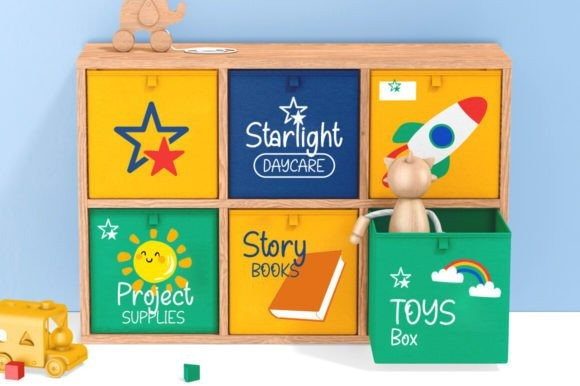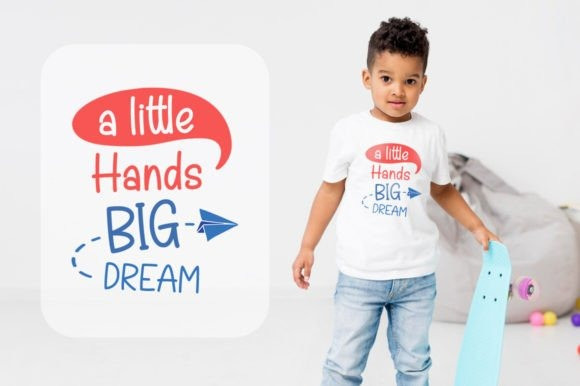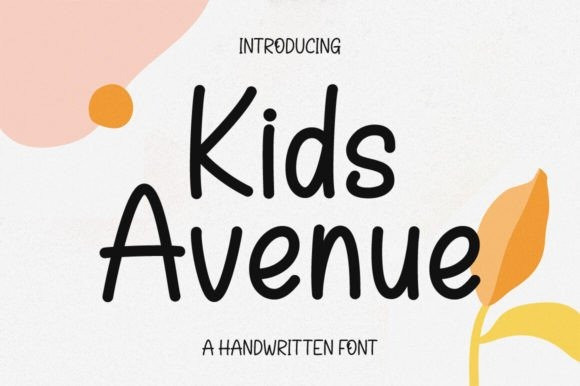
Kids Avenue Handwriting Font
Kids Avenue Handwriting Font is a lovely and timeless handwritten font. It is the best choice for creating eye-catching logos, branding, and quotes.